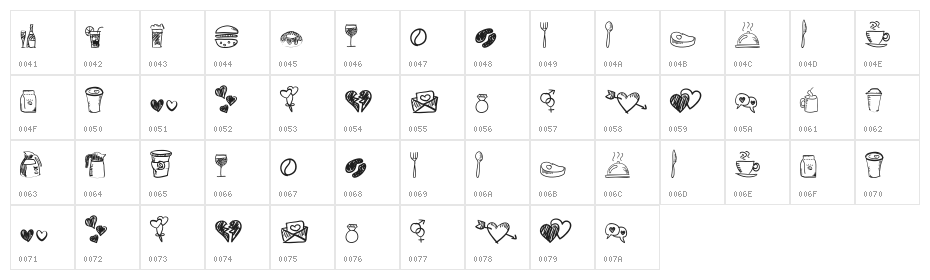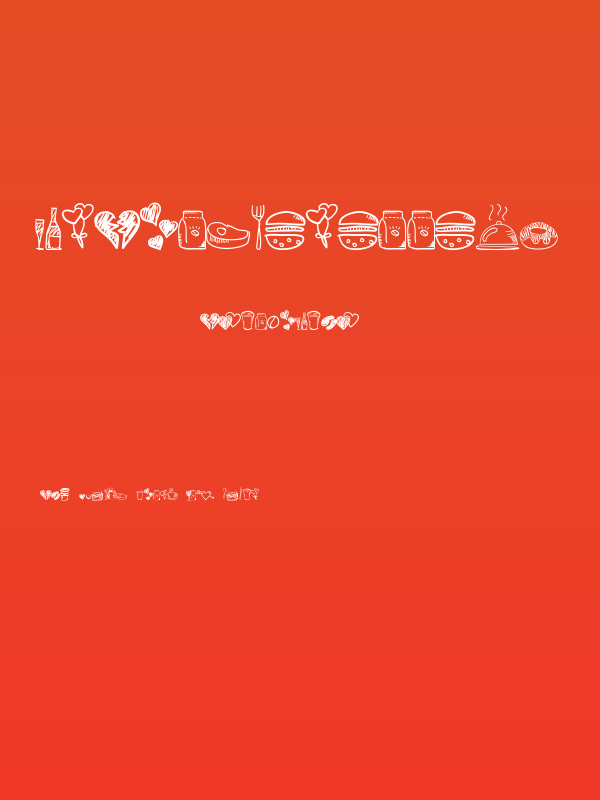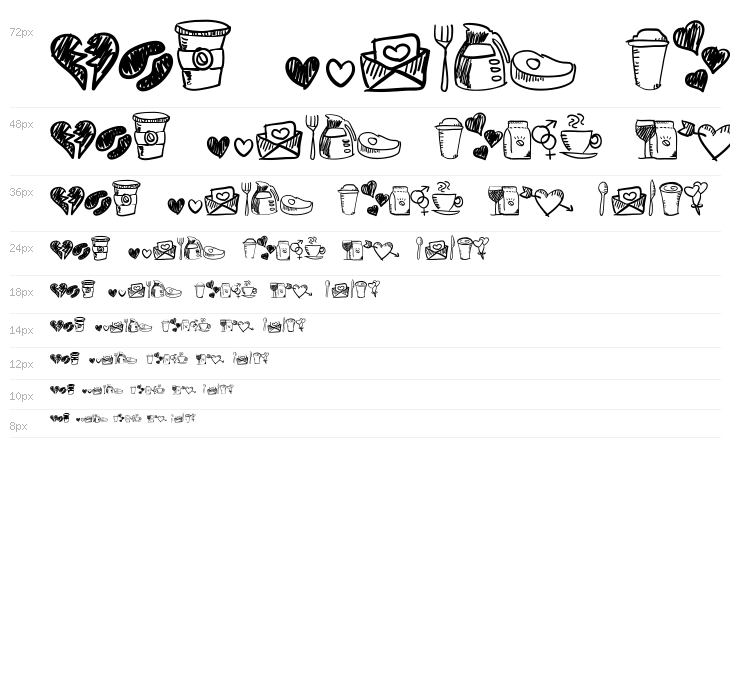
AstrokidsDoodle Font
AstrokidsDoodle Description
This collection features a playful and whimsical set of doodles, capturing a variety of food and drink items, along with charming symbols like hearts and rings. The style is hand-drawn, with a casual and fun aesthetic that evokes a sense of lightheartedness and creativity. Each doodle is unique, with varying line thicknesses and a sketch-like quality that adds to the overall charm. The illustrations are perfect for projects that require a touch of personality and a handmade feel, making them ideal for creative and informal designs.
| Overall Style | Whimsical, Playful, Hand-drawn |
| Use Case | Illustrations, Decorative elements, Informal designs |
| Proposed Projects | Ideal for children's books, playful branding, casual invitations, and creative social media graphics. |